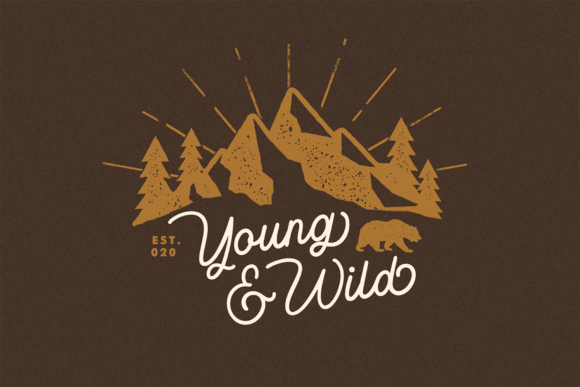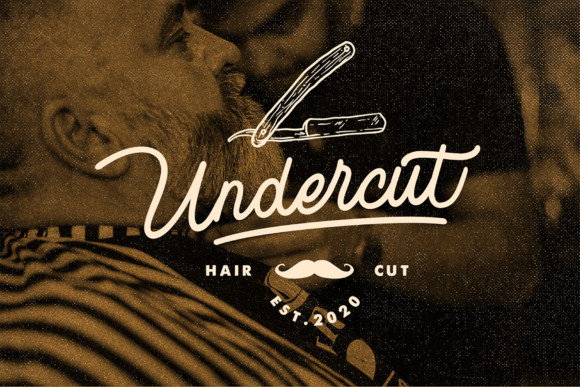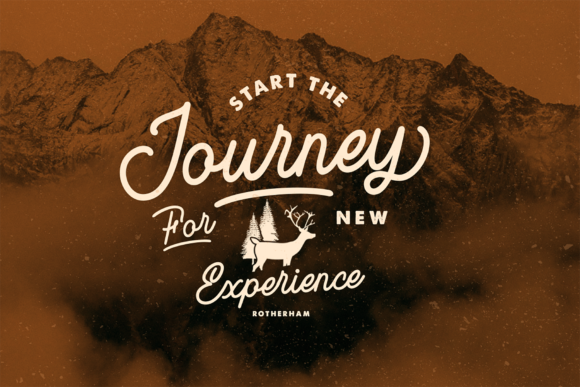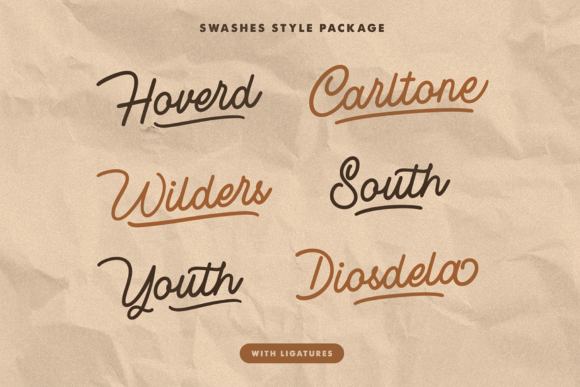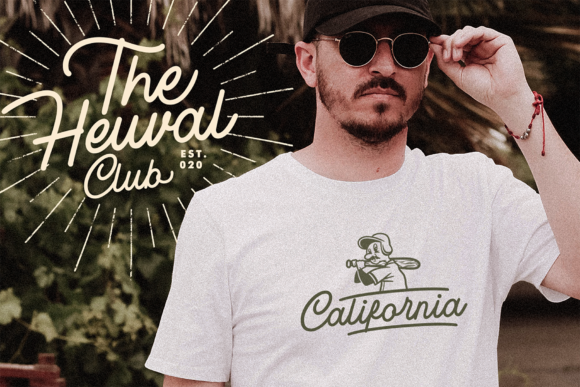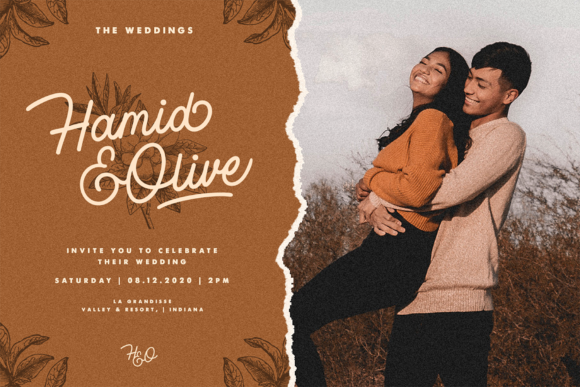
Introduction to Rotherham Font
Rotherham is a classy monoline script with dynamic swashes.
Use it to make any design project stand out .
Key Features of Rotherham Font
Why Choose Rotherham Font?
Rotherham Font offers exceptional quality and versatility, making it a valuable addition to your design toolkit. Whether you’re creating for personal projects or commercial use, Rotherham Font delivers professional results.